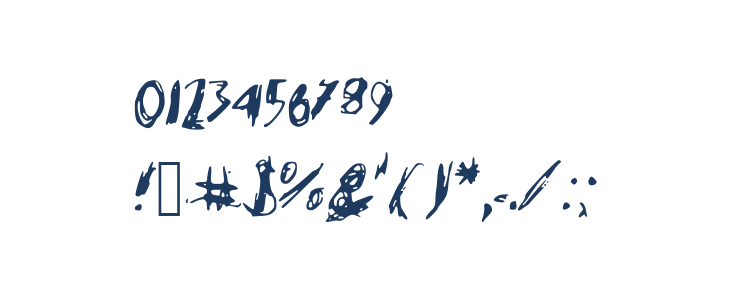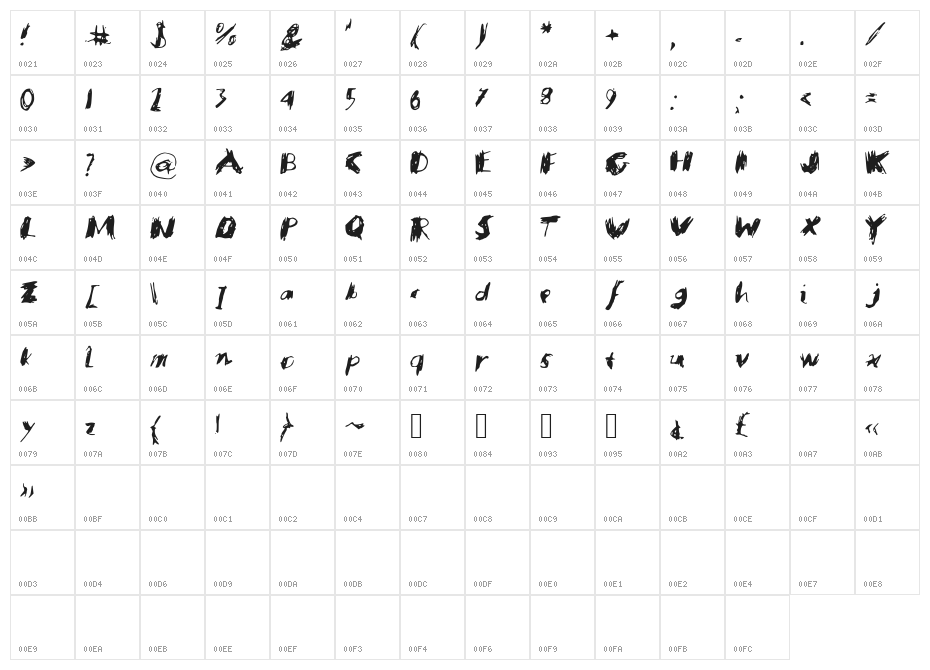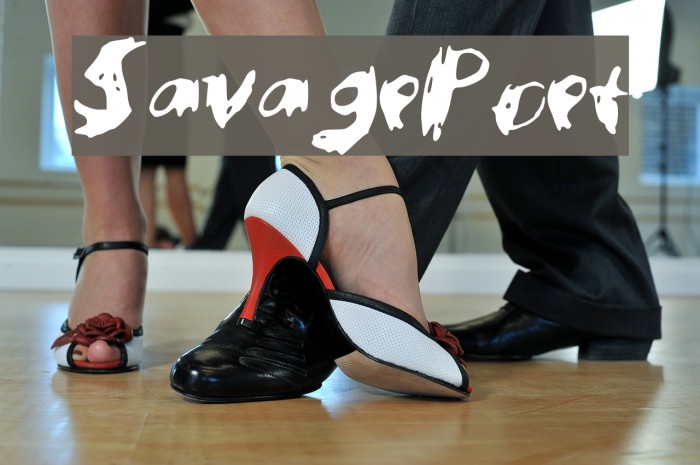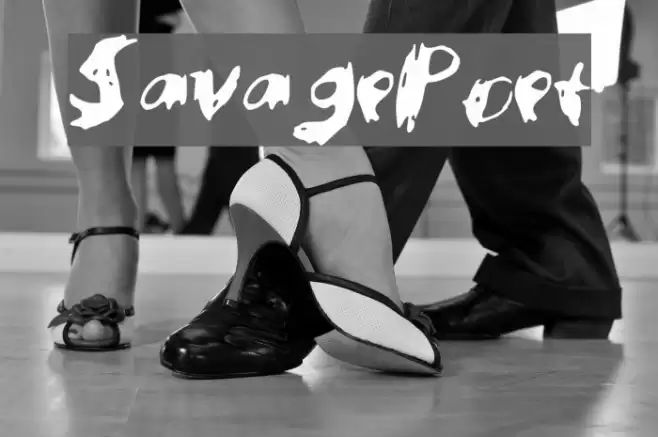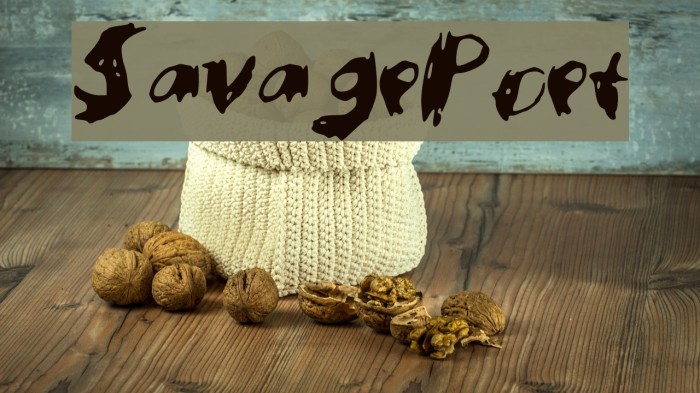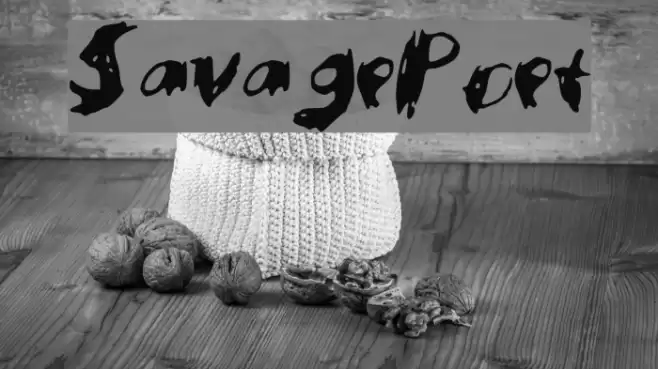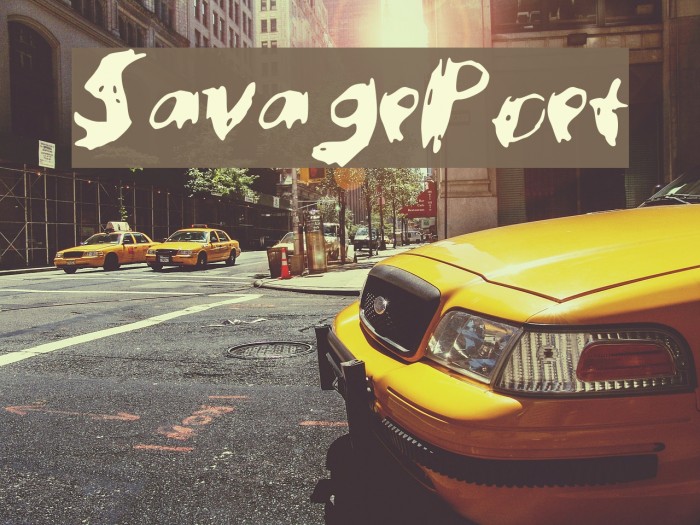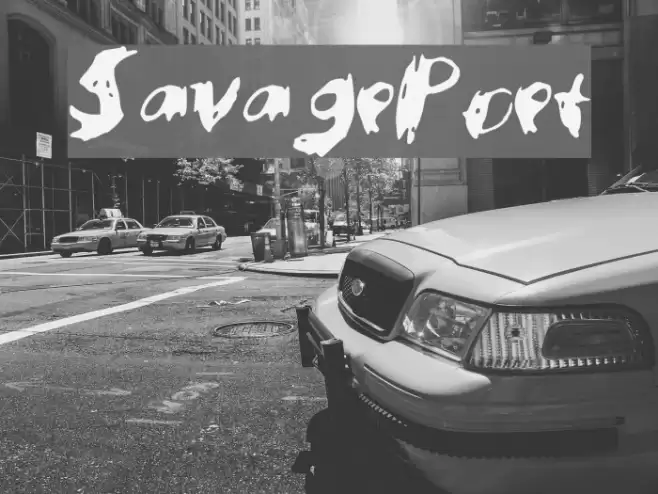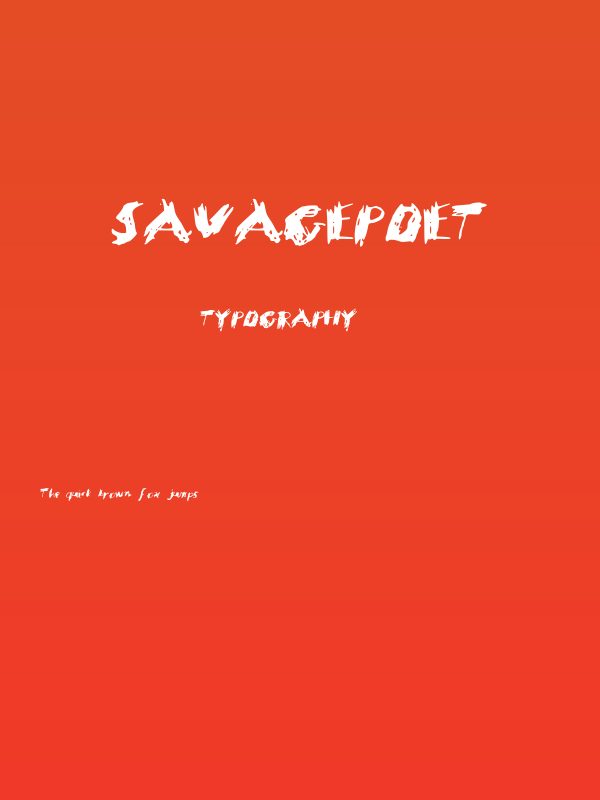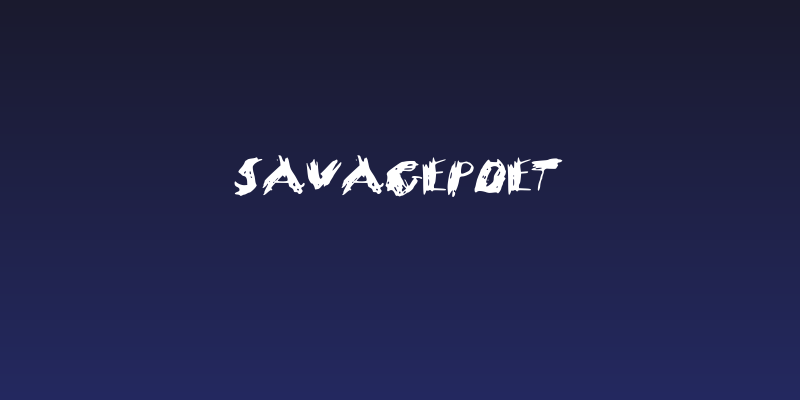
SavagePoet Font
SavagePoet Description
This font features a bold and expressive style, characterized by its rough, brush-like strokes that convey a sense of raw energy and movement. The letters have an irregular and jagged appearance, giving them a hand-drawn, artistic feel. The uppercase and lowercase letters maintain a consistent theme, with each character exhibiting unique variations that add to the font's dynamic nature. Numbers and special characters follow the same aesthetic, ensuring a cohesive look across all text elements. The overall impression is one of creativity and spontaneity, making it ideal for projects that require a bold and unconventional typeface.
| Use Case | Headlines, Logos, Artistic projects |
| Proposed Projects | Ideal for album covers, posters, graffiti art, and any project seeking a bold, artistic touch. |